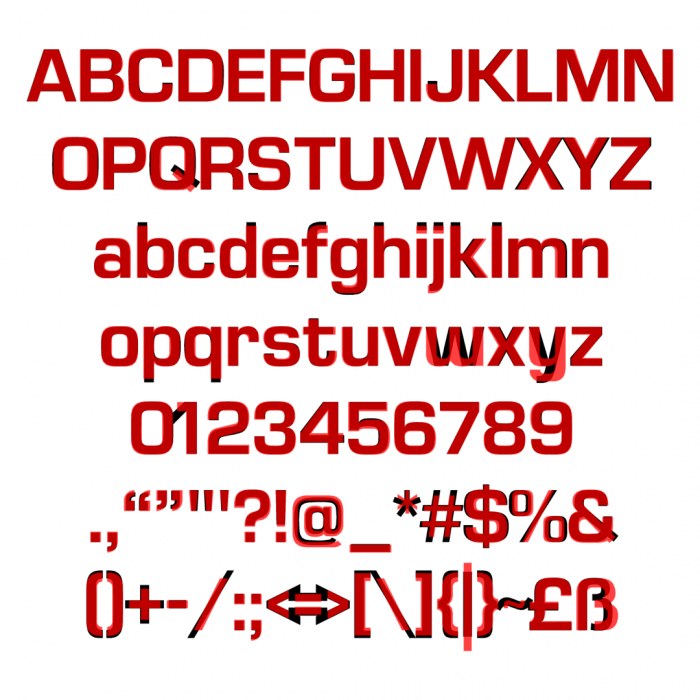
Very professional work here, dear master! Personally, I prefer your alternates designs to the "w" and "y" glyphs. ?  Like a joke, If you've done this very good "Eurogramma", it reminds me to fontstruct something simmilar to a "Microstyle" font too... 10/10.
Very pretty curves, seeing they at big size, btw.
Love this font, I wonder how it compares to Eurostile…
I like the angled w and y…
Thanks. Here is a comparison (I made the original's lowercase a bit bigger to fit this)
Great comparative demo pict and great fontstruct. Congratulations!
This is the ultimate Sans-Serif font I've ever seen, excellent work.
Why is the w a turned m?
@Luuk Mölders - The better question is: why is the m a turned w?  ;^D
Wow! I love how you did your "w" and "y"!
One thing I can tell is that this uses 2x2 filters, and lots of nudging, as well as custom bricks to get certain angles…
almost identical, but still fresh, i love it!
you should at least make the w and the y better...
this is an epic alternative to Eurostile. i like it :)
“We already have Eurostile at home.”
Eurostile at home: This
It's gonna take some time to realize this isn't Eurostile. 10/10
Oh no. I cannot find the angled w and y anywhere.
@Cidein They are in the ^ and ` respectively.
> It's gonna take some time to realize this isn't Eurostile. 10/10
The reason I said this is because Eurostile was the font used in the logo for Drake & Josh.
w: am i a joke to you
Fine, due to popular demand I've changed the w/y.
This feels like it would be on a cooking show.